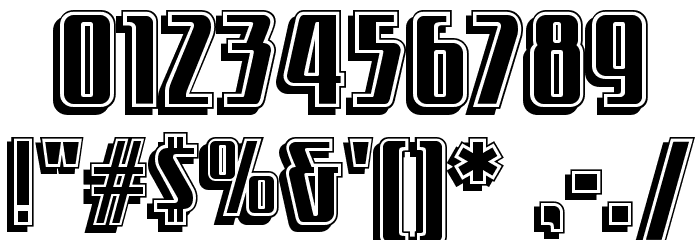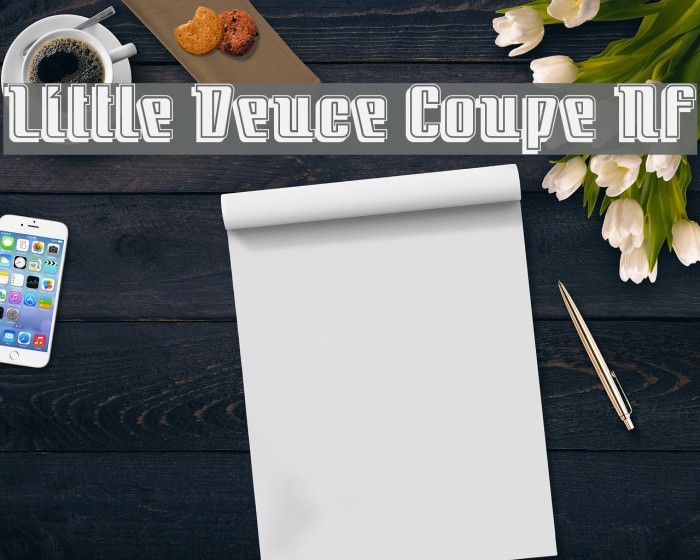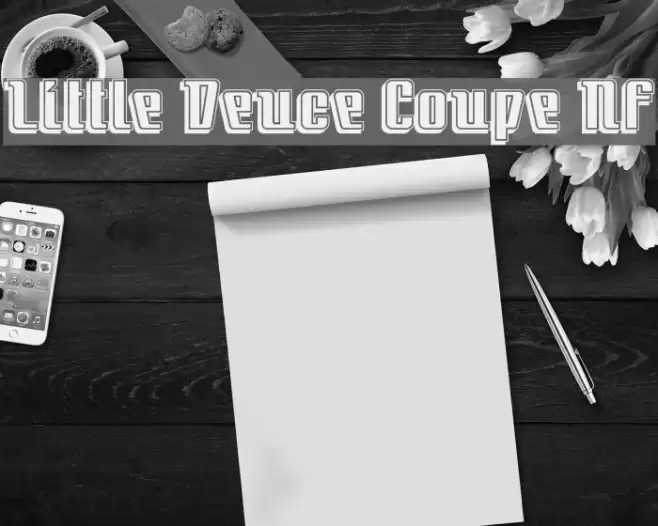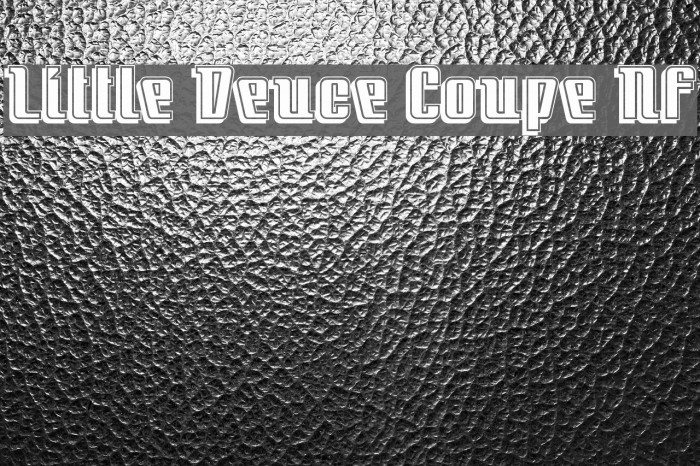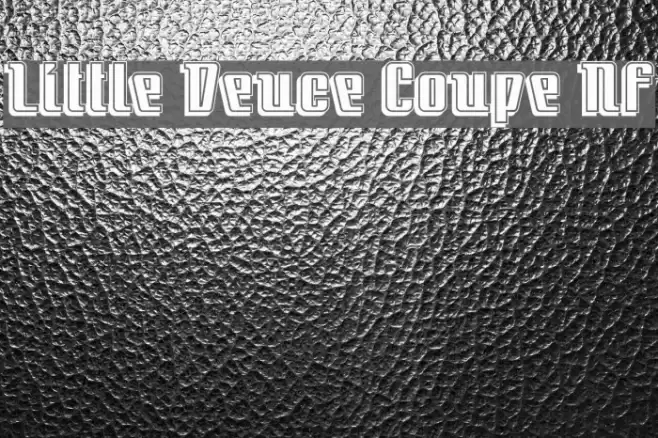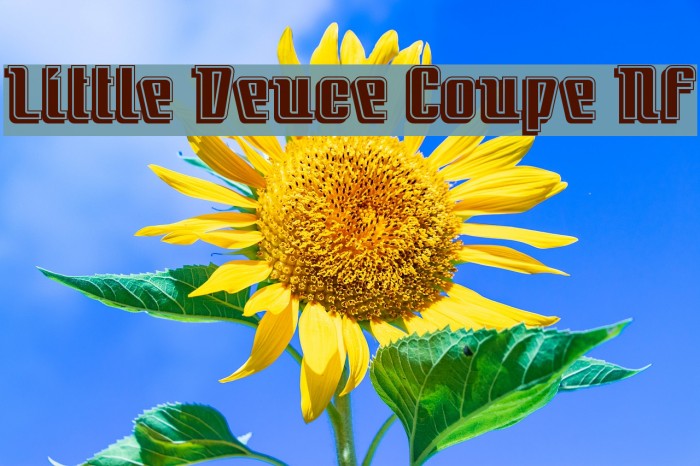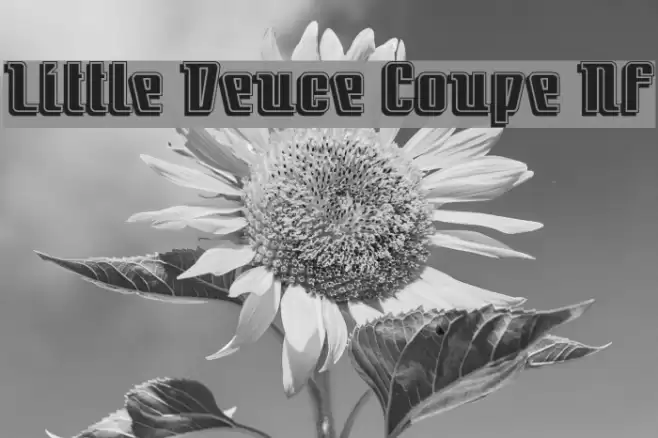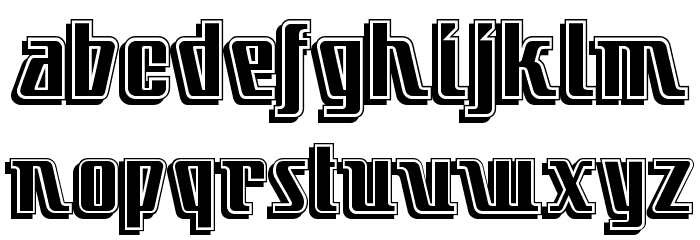
Little Deuce Coupe NF Font
Little Deuce Coupe NF Description
This font features a bold, decorative style with a distinct outline that gives it a three-dimensional effect. The characters are designed with sharp angles and a blocky appearance, making them stand out prominently. The uppercase and lowercase letters maintain a consistent style, with the uppercase letters being slightly more elaborate. Numbers and special characters follow the same design principles, ensuring uniformity across all glyphs. This font's unique style is reminiscent of vintage car emblems or retro signage, adding a touch of nostalgia and flair.
| Overall Style | Vintage |
| Proposed Projects | Ideal for retro-themed posters, automotive branding, vintage signage, and eye-catching headlines. |